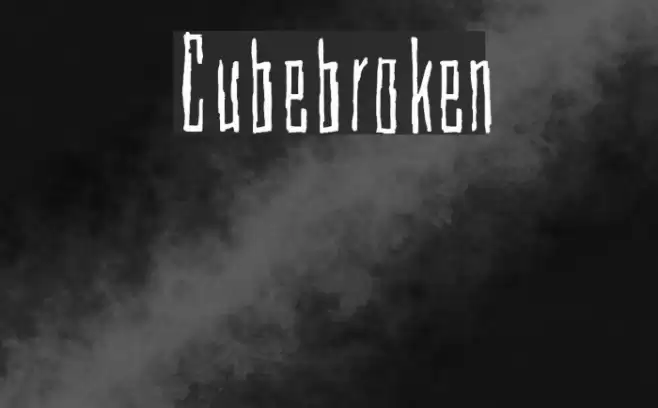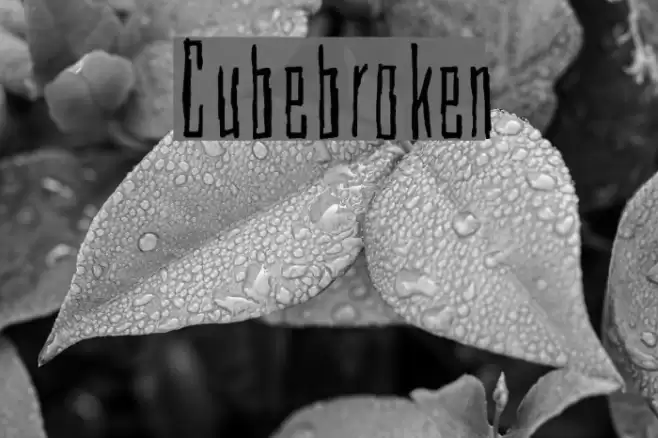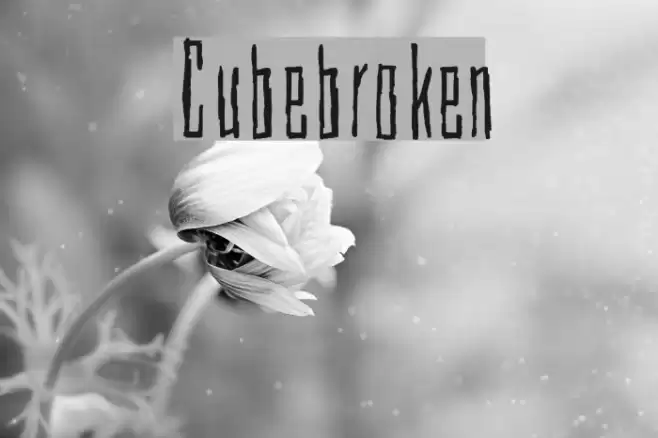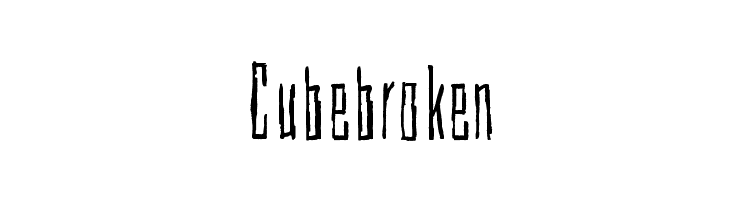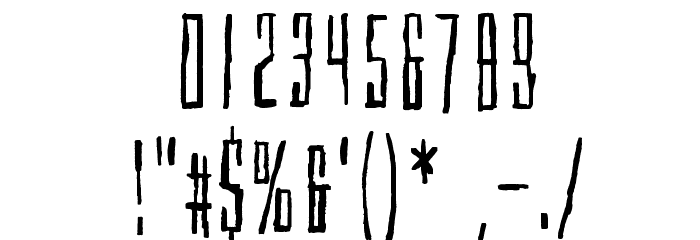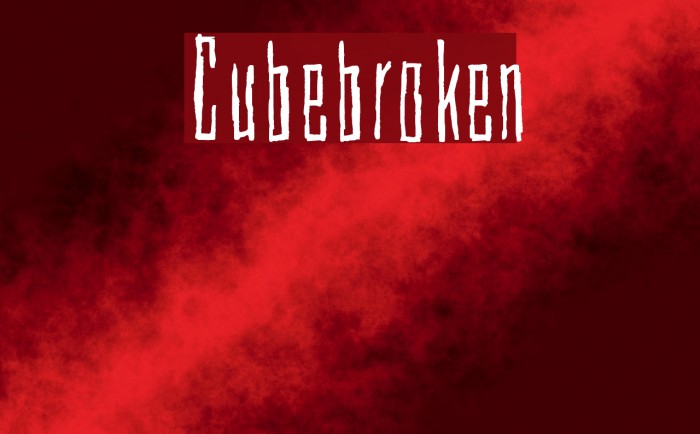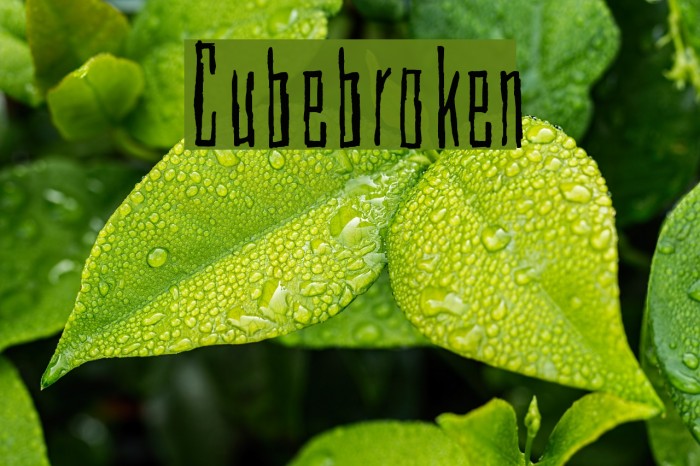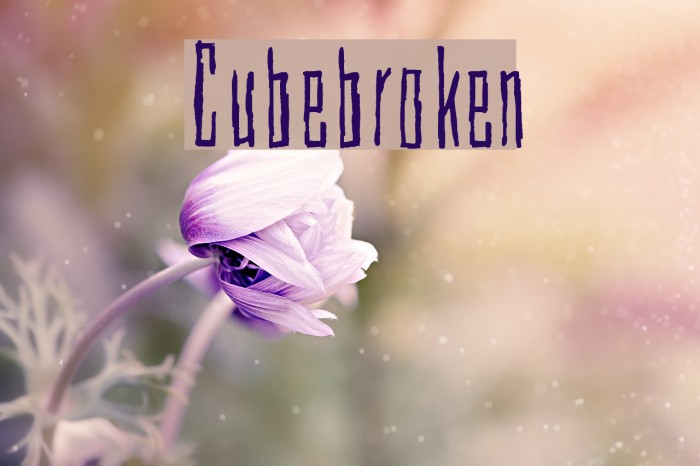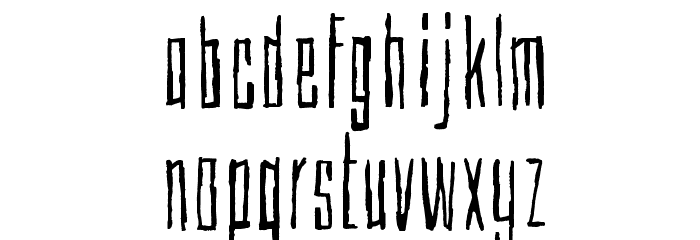
Cubebroken Font
Cubebroken Description
This font features a distinct, edgy design with a hand-drawn appearance. The characters are tall and narrow, with uneven edges that give a rugged, distressed look. The uppercase and lowercase letters maintain a consistent height, contributing to a cohesive yet dynamic style. Numbers and special characters follow the same aesthetic, enhancing the font's unique personality. The irregular strokes and varying thicknesses create a sense of movement and energy, making it ideal for projects that require a bold, artistic touch.
A tall, narrow font with a rugged, hand-drawn appearance and uneven edges from Distorted Eroded fonts.
- Proposed Projects: Ideal for posters, album covers, branding for edgy or artistic products, and any design needing a bold statement.
- Character Spacing: Tight